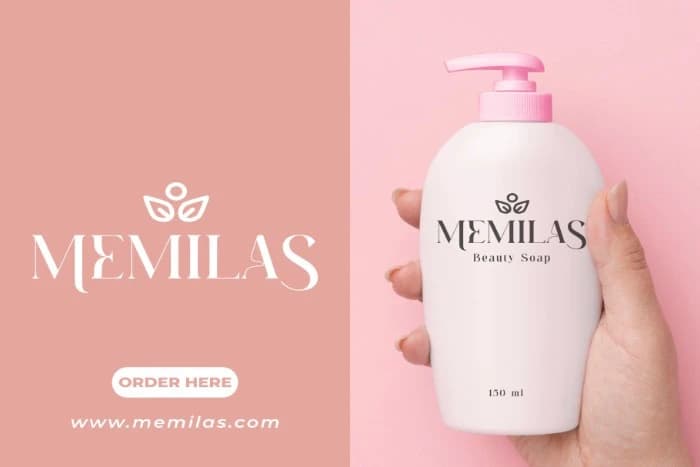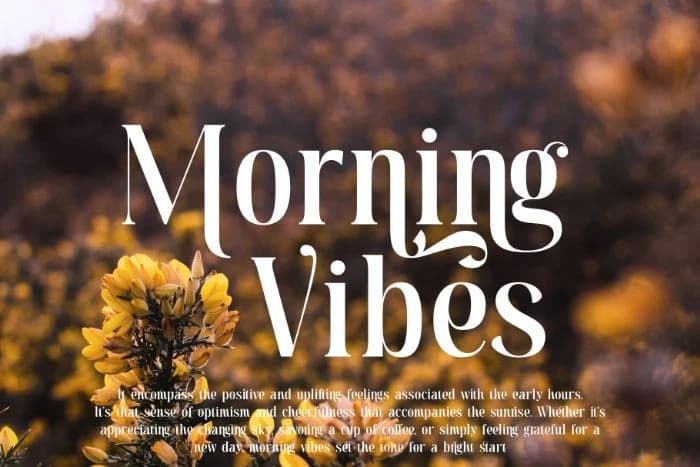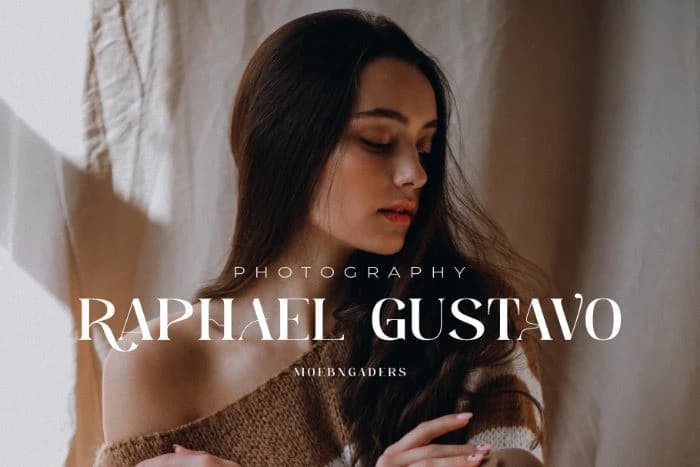
Moebngaders Font
Moebngaders Font is a modern serif font that seamlessly blends elegance with strength. Whether you’re crafting a brand identity, designing a logotype, or embarking on various creative endeavors, Moebngaders is your trusty companion.